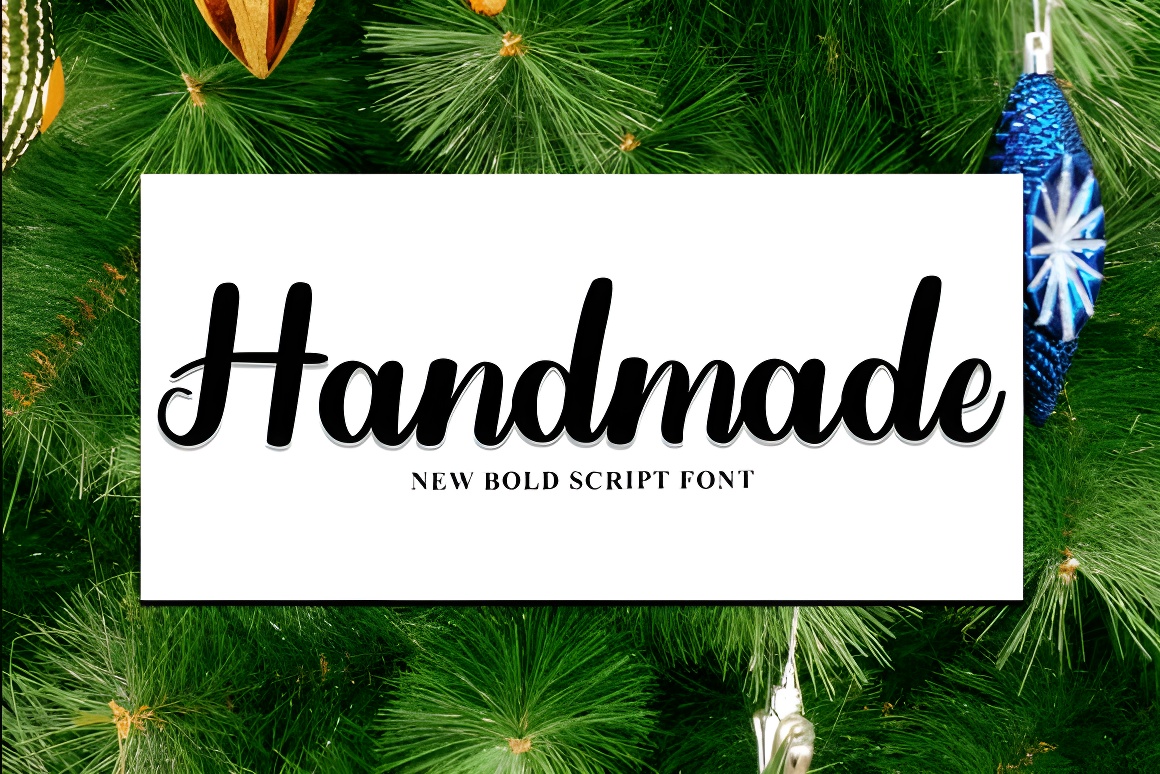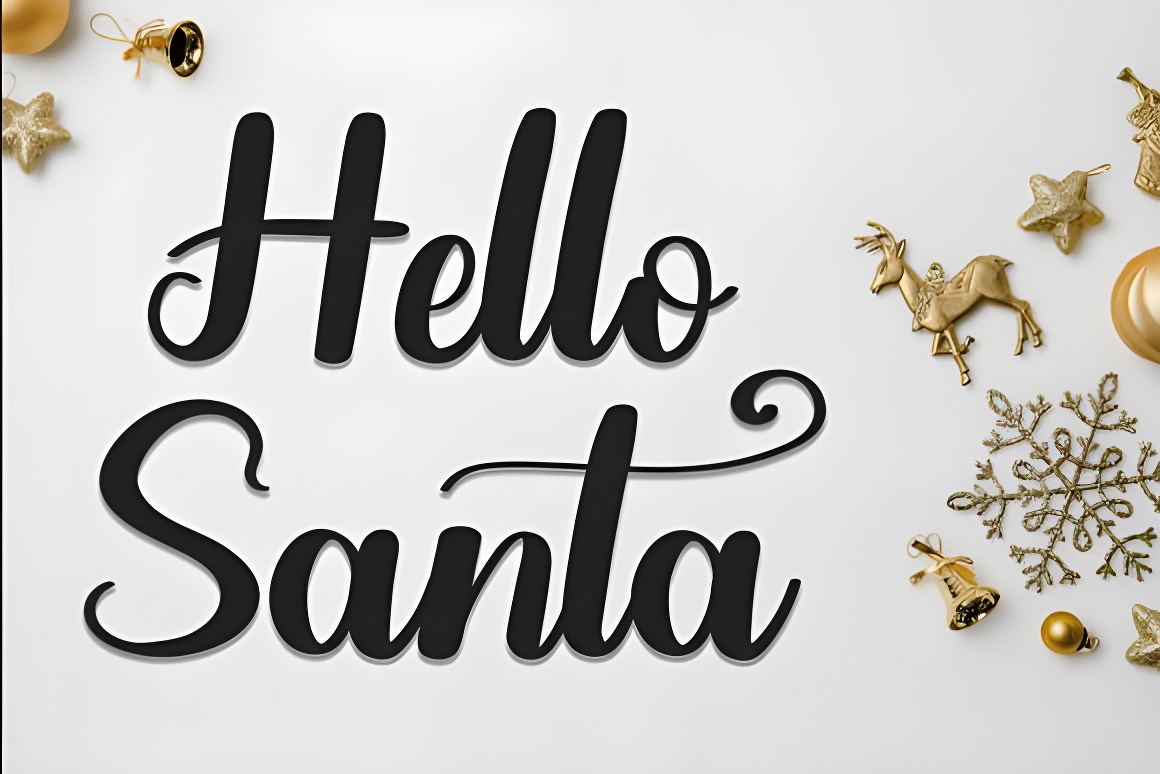
Festive Christmas Golden Font - Holiday Decorative Typeface
Festive Christmas font with decorative elements & whimsical flair. Ideal for greeting cards, gift tags & holiday designs. PUA encoded for easy access to glyphs & ligatures. Instills nostalgic cheer!